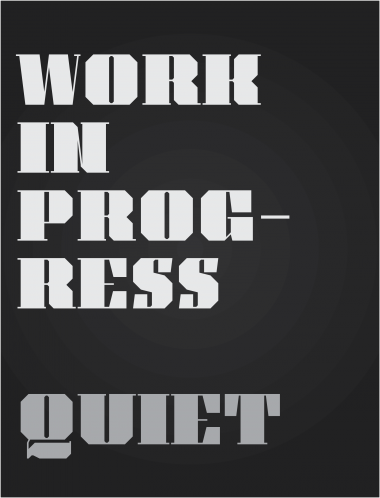
demonics
i really need to do this better
This is mind-blowing.
Gorgeous. Although the uppercase Z's serifs do kind of stand out, along with the white space it makes.
Very nice angle usage. 10/10 and a favorite.
WOW, finally you figured this really awesome work! Still in progress, still a ten and a favorite.
"Z" needs more work, though.
winty + u126 + Isaiah + cable — thank you very much. I know the Z is horrible; I just did it today. Lowercase coming when I have time. Thanks again for all your constant support!
Solid work, I especially like M/Q.